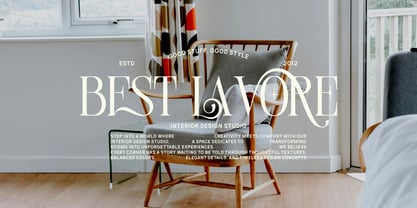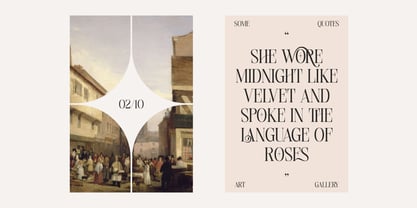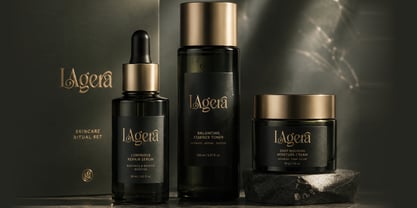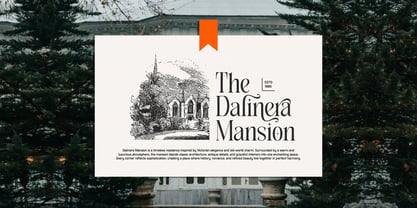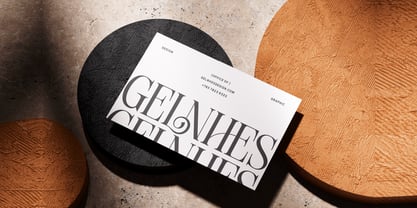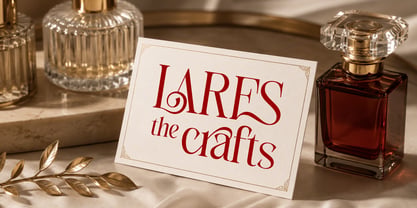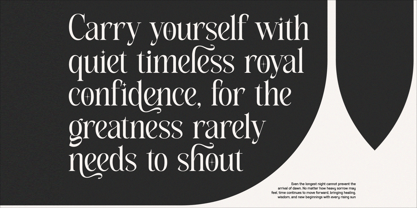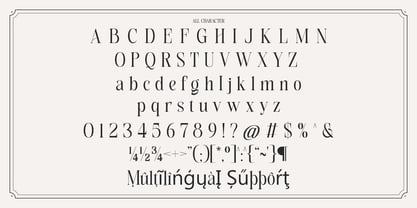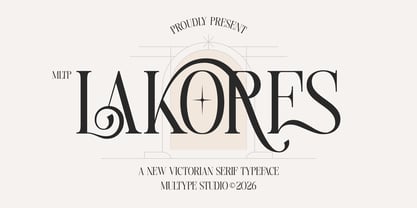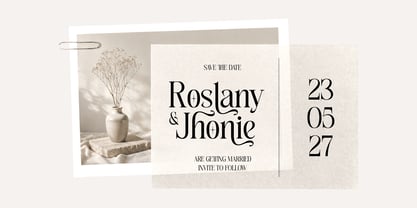
MLTP Lakores
MLTP Lakores is an elegant high contrast serif typeface with a refined editorial personality and distinctive decorative details. Combining graceful proportions, sharp serifs, sophisticated contrast, and expressive alternate characters, MLTP Lakores brings a luxurious and artistic character to every composition.
Designed for creators who want typography to become part of the visual identity, MLTP Lakores includes beautiful ligatures and alternate forms that create a unique, custom made appearance. Its expressive swashes and ornamental letterforms make it especially suitable for fashion branding, luxury packaging, beauty products, cosmetics, perfume labels, wedding stationery, magazine layouts, logos, social media graphics, and premium editorial design.
From clean uppercase compositions to expressive lowercase lettering, MLTP Lakores offers a versatile balance between timeless elegance and contemporary style. It is a perfect choice for designers looking for a sophisticated serif font with distinctive character, luxury appeal, and strong visual impact.